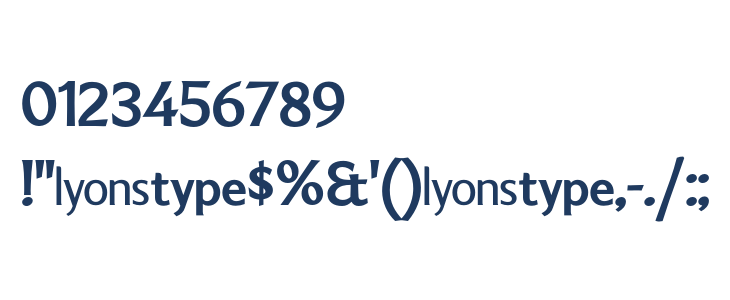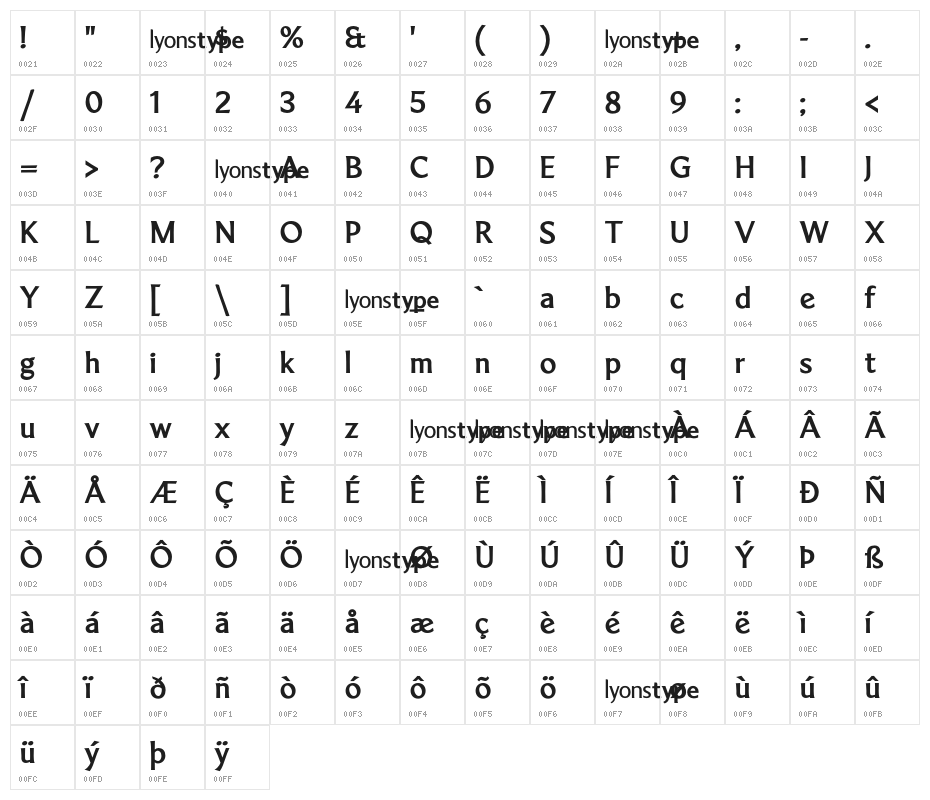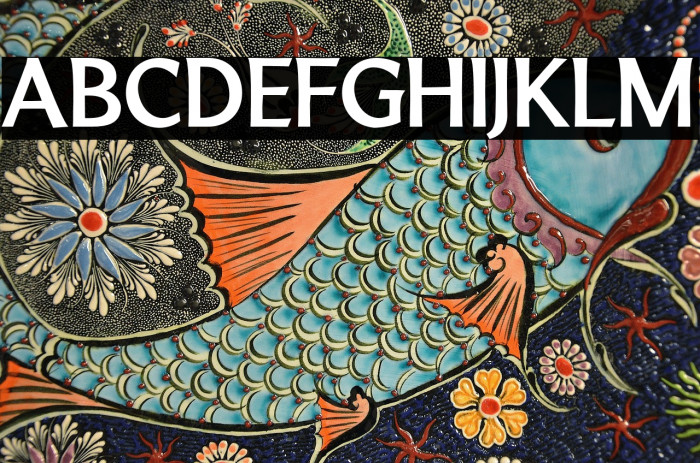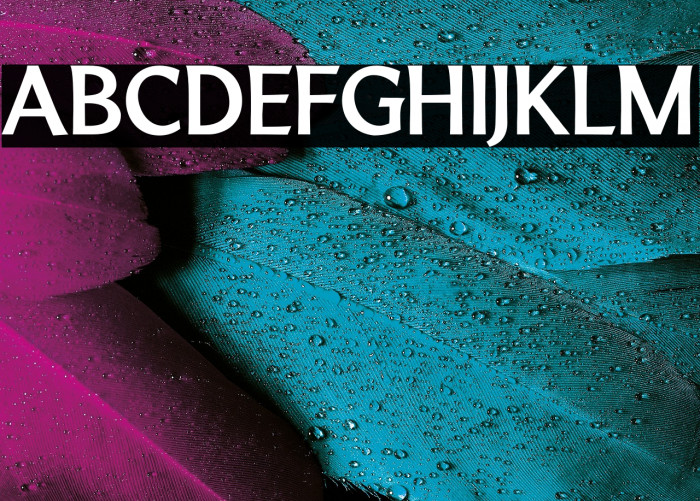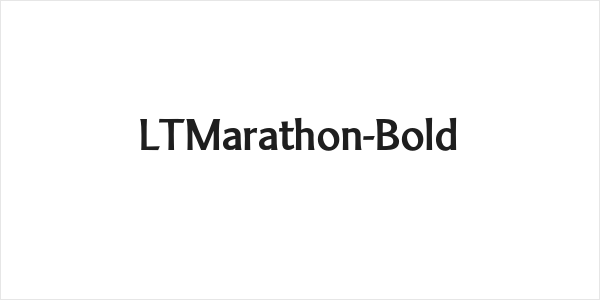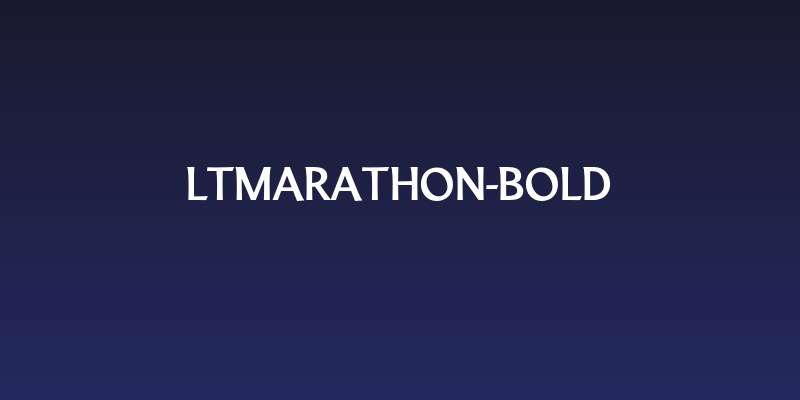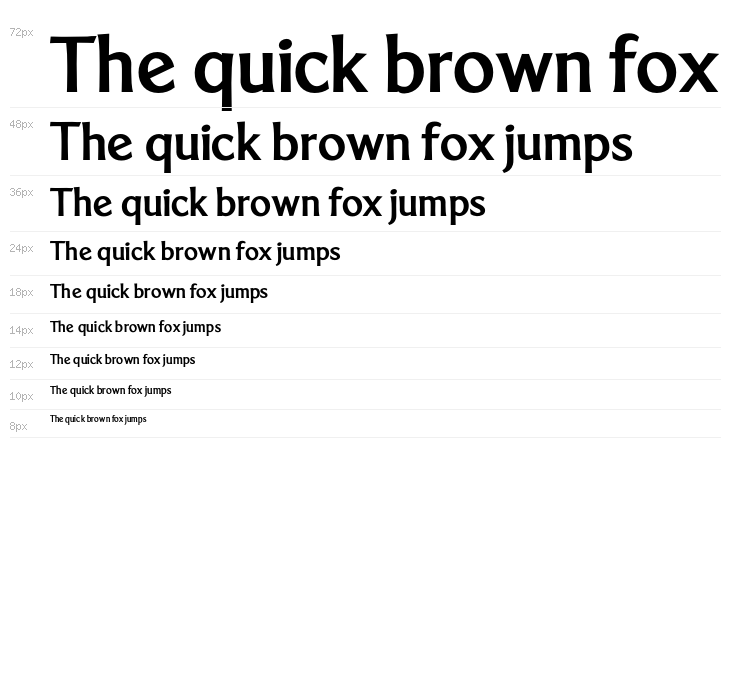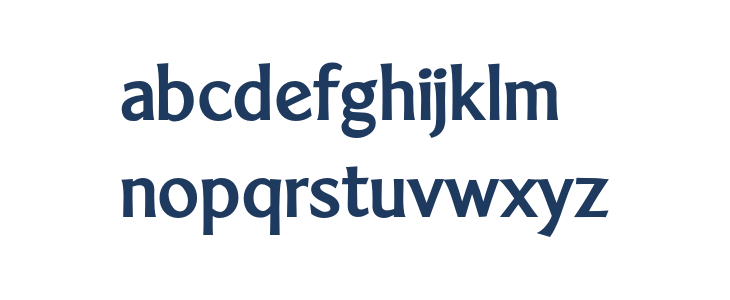
LTMarathon-Bold Font
LTMarathon-Bold Description
This font features a bold and confident style with strong, clean lines and a modern aesthetic. The uppercase letters are robust and commanding, while the lowercase letters maintain a consistent weight and structure, offering a harmonious balance. The numerals are clear and legible, making them suitable for various applications. Special characters are well-integrated, maintaining the overall boldness and clarity of the design. The font's design is versatile, making it suitable for both digital and print media. Its bold weight ensures that it stands out in headlines and titles, while its clean lines and modern style make it appropriate for branding and logo design.